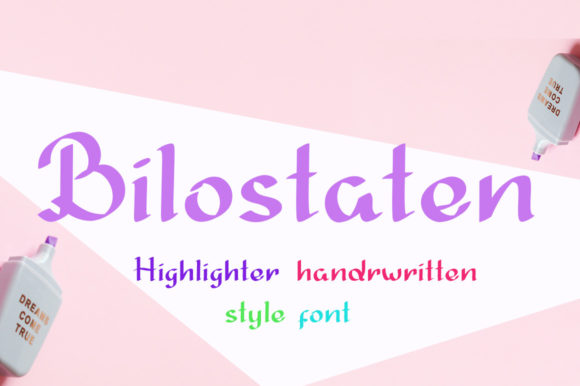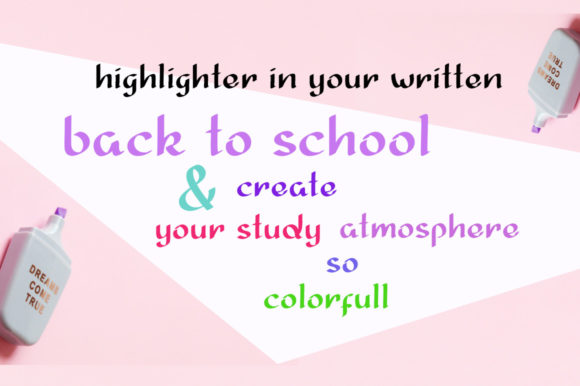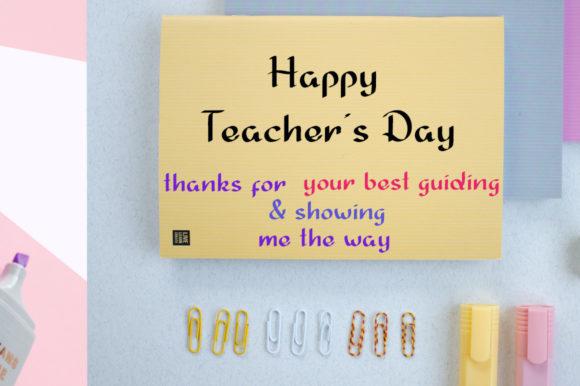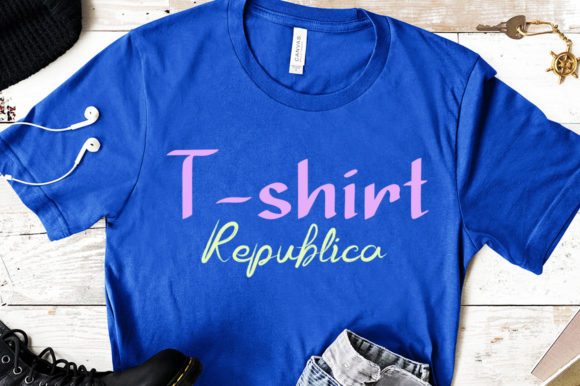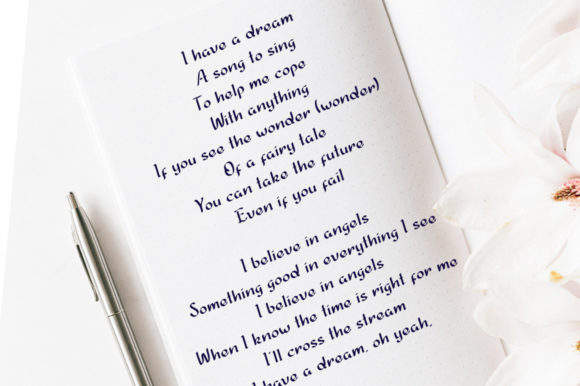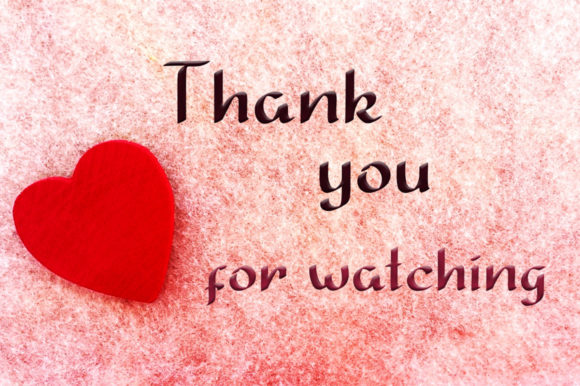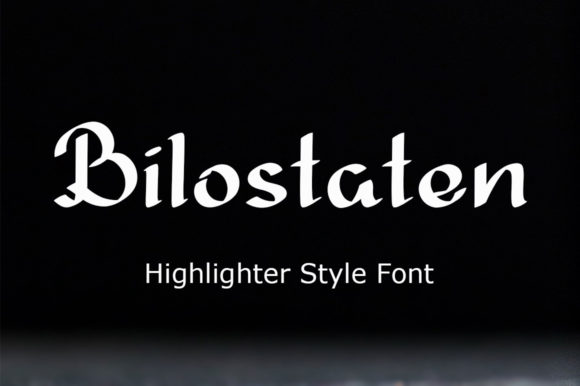
Bilostaten Font: Elevate Your Designs with a Chic and Trendy Handwritten Style
In the world of typography, fonts play a crucial role in bringing creative ideas to life. For designers and crafters, finding the perfect font can be a daunting task, especially when looking for something that adds a touch of personality and uniqueness to a project. This is where Bilostaten Font comes into play – a chic and trendy handwritten font designed to make your designs stand out.
What is Bilostaten Font?
Bilostaten Font is a modern, handwritten typeface that exudes elegance and sophistication. Its unique and stylish lettering makes it an excellent choice for a wide range of creative projects, from branding and advertising to packaging and digital media. Whether you’re a professional designer or a crafty DIY enthusiast, Bilostaten Font is sure to inspire your next creative endeavor.
Key Features of Bilostaten Font
• Handwritten Style: Bilostaten Font boasts a beautiful, handwritten style that adds a personal touch to any design.
• Chic and Trendy: Its modern and trendy aesthetic makes it perfect for designers and crafters looking to create fresh and contemporary designs.
• Highly Versatile: Bilostaten Font can be used for a variety of projects, including logos, headings, packaging, and more.
• Easy to Read: Despite its stylish and artistic nature, Bilostaten Font remains highly legible, making it suitable for both display and body text.
How to Use Bilostaten Font in Your Designs
Incorporating Bilostaten Font into your designs is a straightforward process. Here are a few tips to get you started:
1. Pair it with Other Fonts: Combine Bilostaten Font with complementary fonts to create visually appealing contrast and hierarchy in your designs.
2. Experiment with Colors: Take advantage of Bilostaten Font’s versatility by experimenting with different colors and textures to match your brand’s aesthetic.
3. Use it for Headings and Titles: Bilostaten Font’s stylish and eye-catching design makes it perfect for headings, titles, and other display text.
4. Add Personal Touches: Use Bilostaten Font to add personal touches to your designs, such as handwritten notes or signatures.
Benefits of Using Bilostaten Font
Bilostaten Font offers numerous benefits for designers and crafters, including:
• Unique and Memorable Designs: Bilostaten Font helps create unique and memorable designs that stand out from the crowd.
• Time-Saving: With Bilostaten Font, you can quickly and easily add a professional touch to your designs without spending hours on custom lettering.
• Flexibility: Bilostaten Font’s versatility makes it suitable for a wide range of projects and applications.
Font Name Bilostaten Font
Author harisgostudio
Bilostaten Font is a chic and trendy handwritten font that can elevate your designs and make them stand out. Its unique style, versatility, and ease of use make it an excellent choice for designers and crafters looking to add a personal touch to their projects. Whether you’re working on a branding campaign, packaging design, or digital media project, Bilostaten Font is sure to inspire your creativity and help you achieve your design goals.